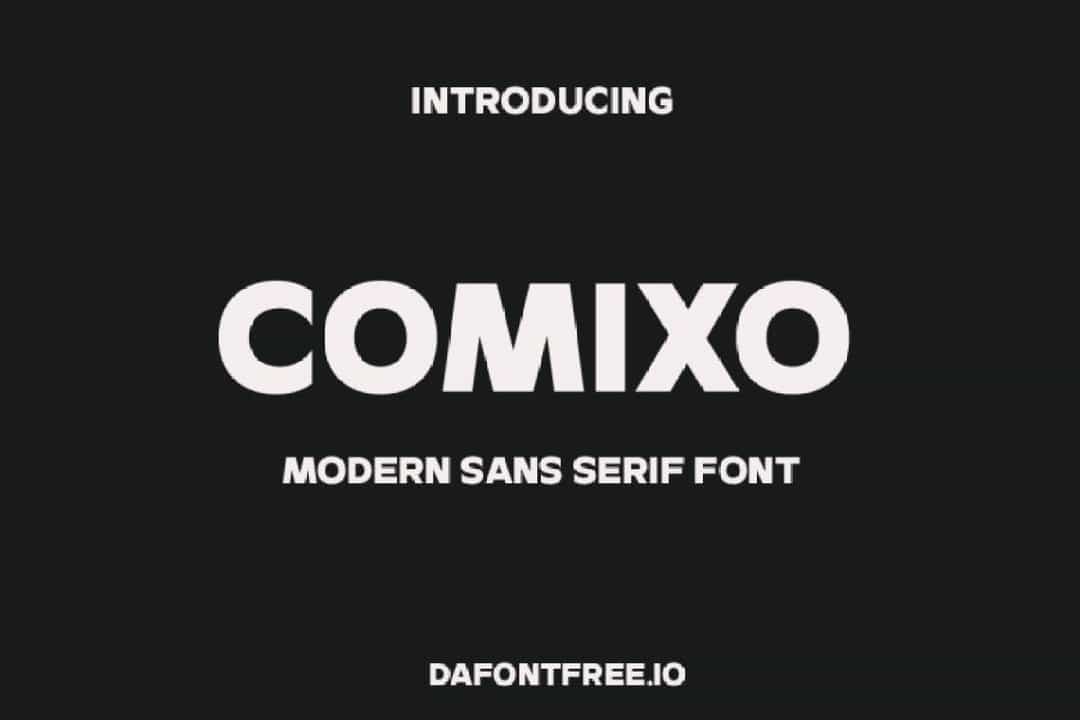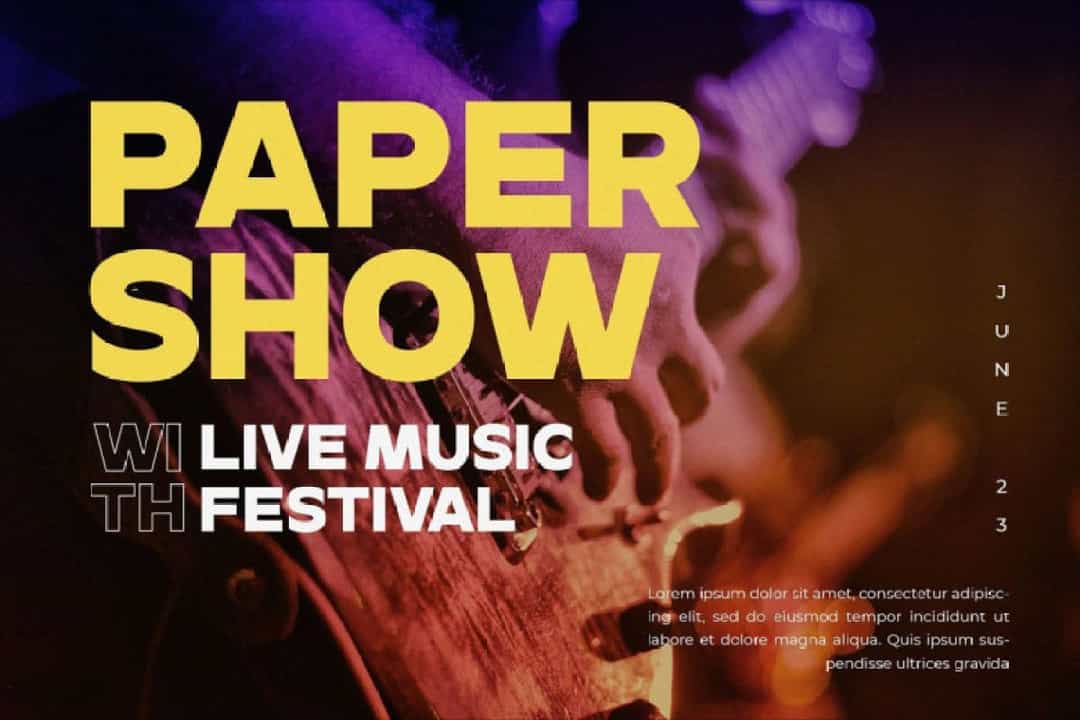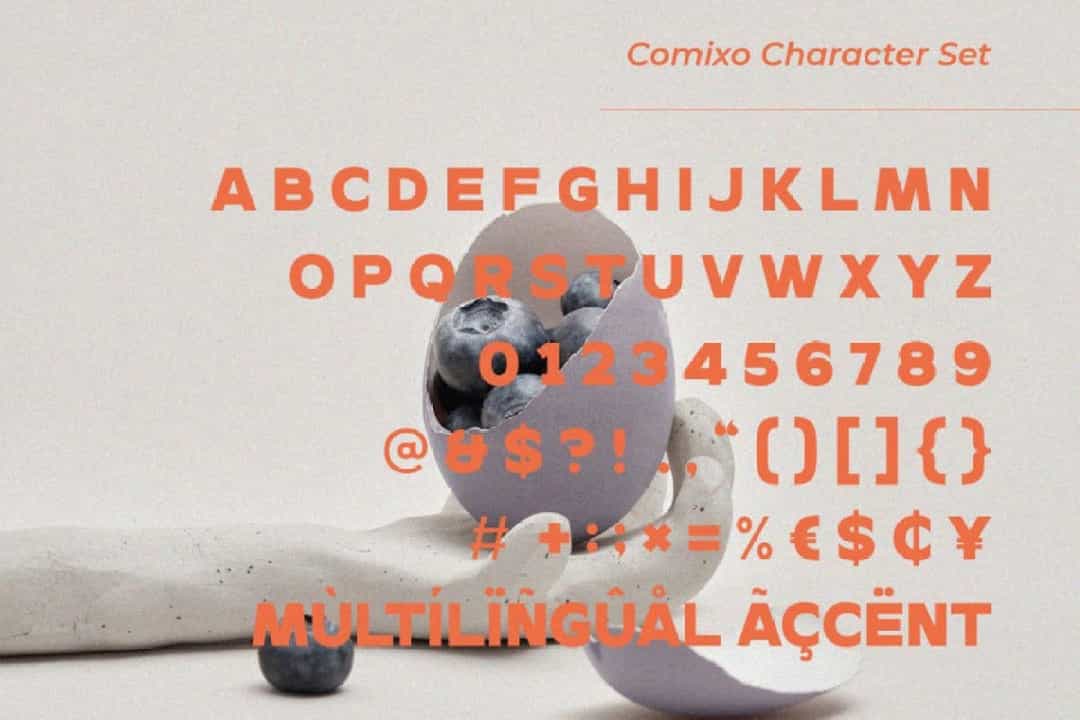
Comixo is an elegant Sans Serif font that is ideal for use as a display font in headings, logos and magazines, branding projects packaging and invitations. With clean lines and smooth curves it adds a modern look while remaining elegant at all times.